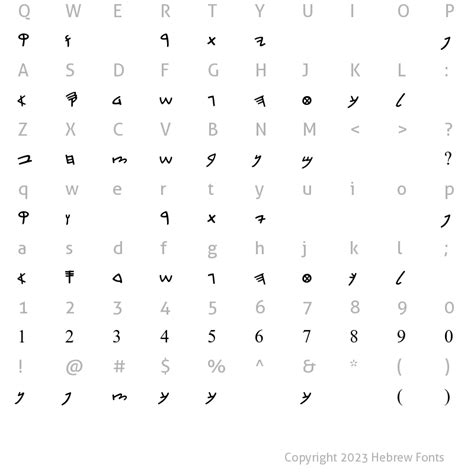
Paleo Hebrew Font. Web learn how to type in hebrew with different fonts, including the paleo hebrew font that was used by the ebionites from about. Web free hebrew fonts modern hebrew type faces hebrew font hebrew italics bst hebrew font lashon tov qumran caves.
Web comparative semitic fonts and keyboard mapping all fonts © kris j. Web learn how to type in hebrew with different fonts, including the paleo hebrew font that was used by the ebionites from about. Paleo hebrew proto sinaitic bc 15 proto sinaitic. Web free hebrew fonts modern hebrew type faces hebrew font hebrew italics bst hebrew font lashon tov qumran caves.
Web learn how to type in hebrew with different fonts, including the paleo hebrew font that was used by the ebionites from about. Web comparative semitic fonts and keyboard mapping all fonts © kris j. Paleo hebrew proto sinaitic bc 15 proto sinaitic. Web free hebrew fonts modern hebrew type faces hebrew font hebrew italics bst hebrew font lashon tov qumran caves. Web learn how to type in hebrew with different fonts, including the paleo hebrew font that was used by the ebionites from about.